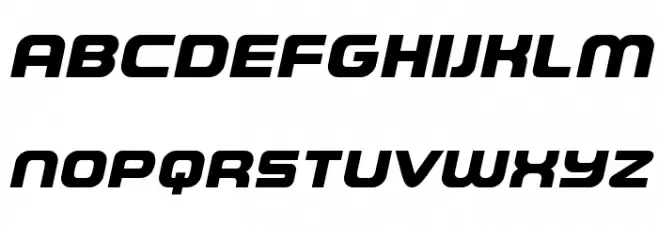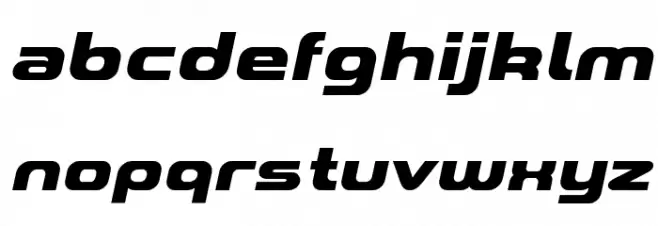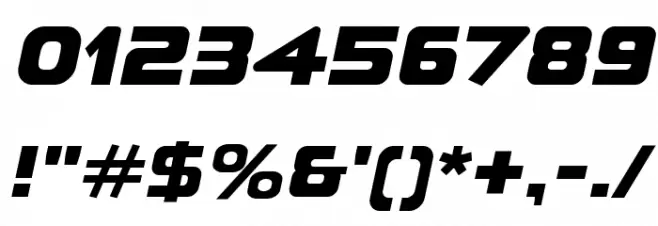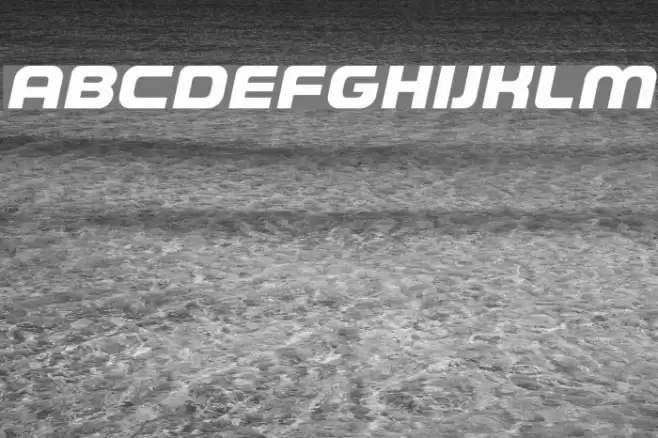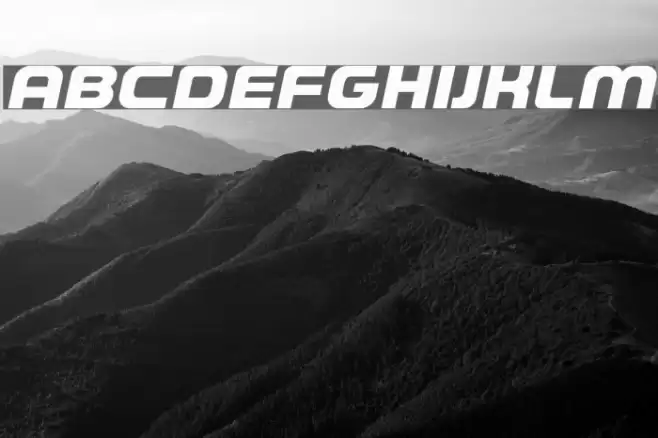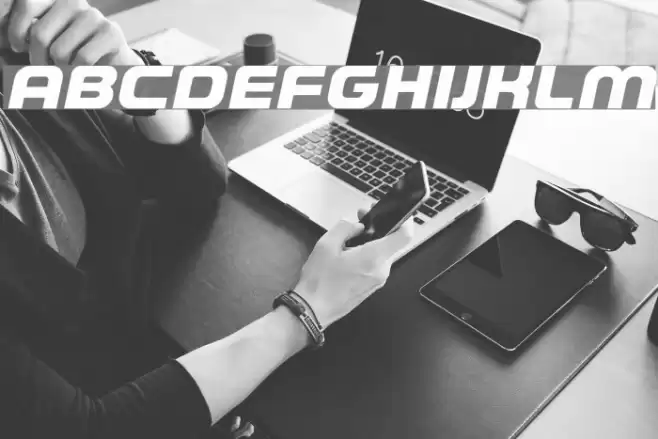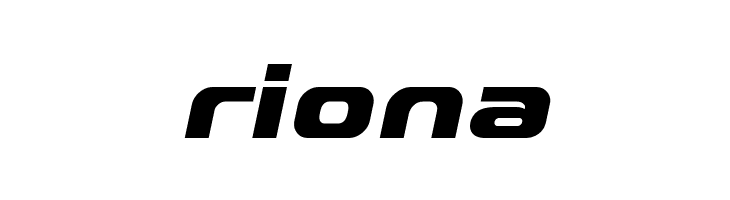
A-Space Black Demo Italic
This font features a bold and dynamic style with a futuristic and modern appeal. The characters are slightly italicized, giving them a forward-leaning posture that suggests movement and speed. The strokes are thick and consistent, providing a strong visual impact. The design is clean and geometric, with rounded edges that soften the overall appearance. The uppercase and lowercase letters maintain a uniform style, while the numerals and special characters complement the alphabet with similar boldness and curvature. This font is ideal for projects that require a contemporary and energetic look.
A bold, italicized font with a futuristic and dynamic style.